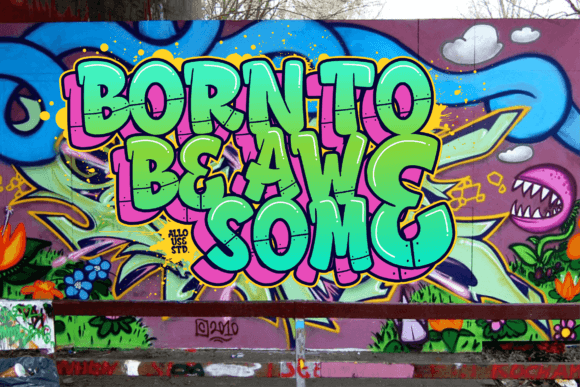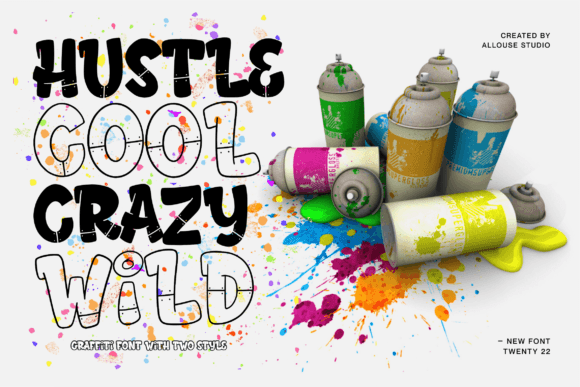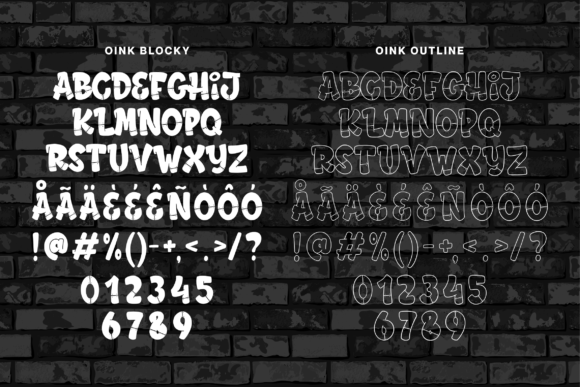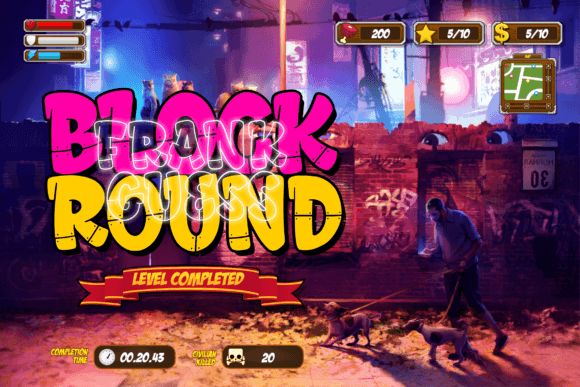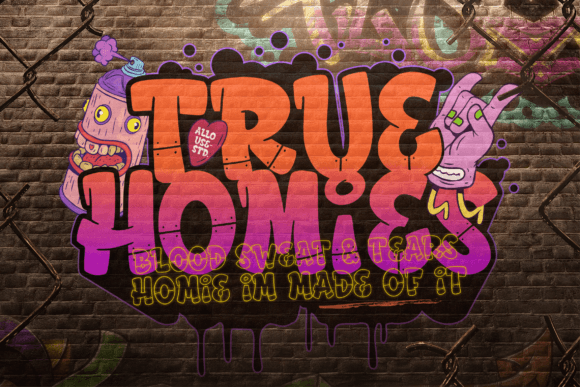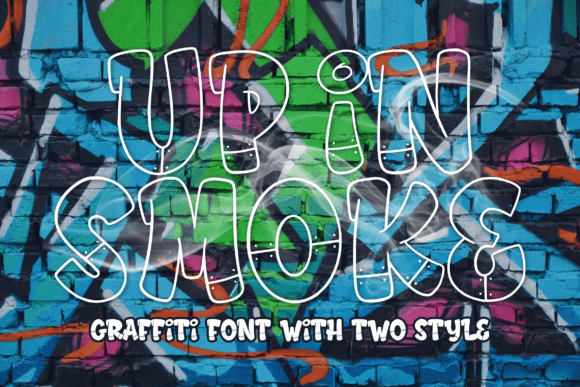
Introduction to Oink Font
Have you ever stared at a blank canvas, wondering how to bring your creative vision to life? For many designers, this moment of uncertainty is a familiar feeling. But what if you had the perfect tool to spark your imagination and elevate your design to the next level?
Enter the Oink Font, a high-quality display font that’s sure to become your new design BFF. With its modern yet whimsical style, this font is the perfect addition to any creative project. Whether you’re working on a free download or a high-end design, the Oink Font is a valuable resource that’s sure to impress.
So why is the Oink Font so special? For one, its transparent background makes it easy to layer with other design elements, giving you endless possibilities for creative expression. And with its free download option, you can start using it in your next project today.
Key Features of Oink Font
- High-quality, hand-drawn design resource ideal for creative projects
- Features a transparent background, making it easy to customize and integrate into designs
- Includes a range of glyphs and characters, making it suitable for use in various creative contexts
- Supports a range of languages, including Latin, Greek, and Cyrillic scripts
- Available in a single size, with a resolution of 1024 x 1024 pixels, ensuring crisp and clear display
- Designed with a playful, whimsical feel, making it perfect for use in children’s books, magazines, and other creative projects
Honest Review: Oink Font
I recently stumbled upon the Oink Font, and I must say, it’s a great addition to any designer’s toolkit. This high-quality font is perfect for anyone working on creative projects that require a fun and playful touch.
One of the standout features of the Oink Font is its transparent background, making it super easy to work with. The design is clean, modern, and versatile, making it suitable for a wide range of applications.
Here are some of the things that work well with the Oink Font:
- Perfect for creative projects and personal branding
While the Oink Font is an excellent resource for designers, there are a few limitations to consider:
- Limited font styles (only a few options available)
- May not be suitable for formal or professional projects
- Requires a clear understanding of typography to use effectively
Overall, the Oink Font is a great addition to any designer’s library. It’s a fun, modern font that’s perfect for creative projects and personal branding. While it has its limitations, it’s a valuable resource that can help take your designs to the next level. ✨
Oink Font
Oink Font is a unique design resource offering a high-quality font with a transparent background, perfect for creative projects. It’s available for free download, making it an excellent choice for designers and artists.
Tips for Getting the Most Out of Oink Font
To get the most out of Oink Font, try the following:
Use it for headings and titles to add a touch of personality to your project.
Combine it with other design elements to create a unique visual identity.
Experiment with different font sizes and styles to achieve the desired effect.
Oink Font is perfect for:
Branding and logo design
Marketing materials and advertisements
Graphic design and visual arts
Alternatives to Oink Font